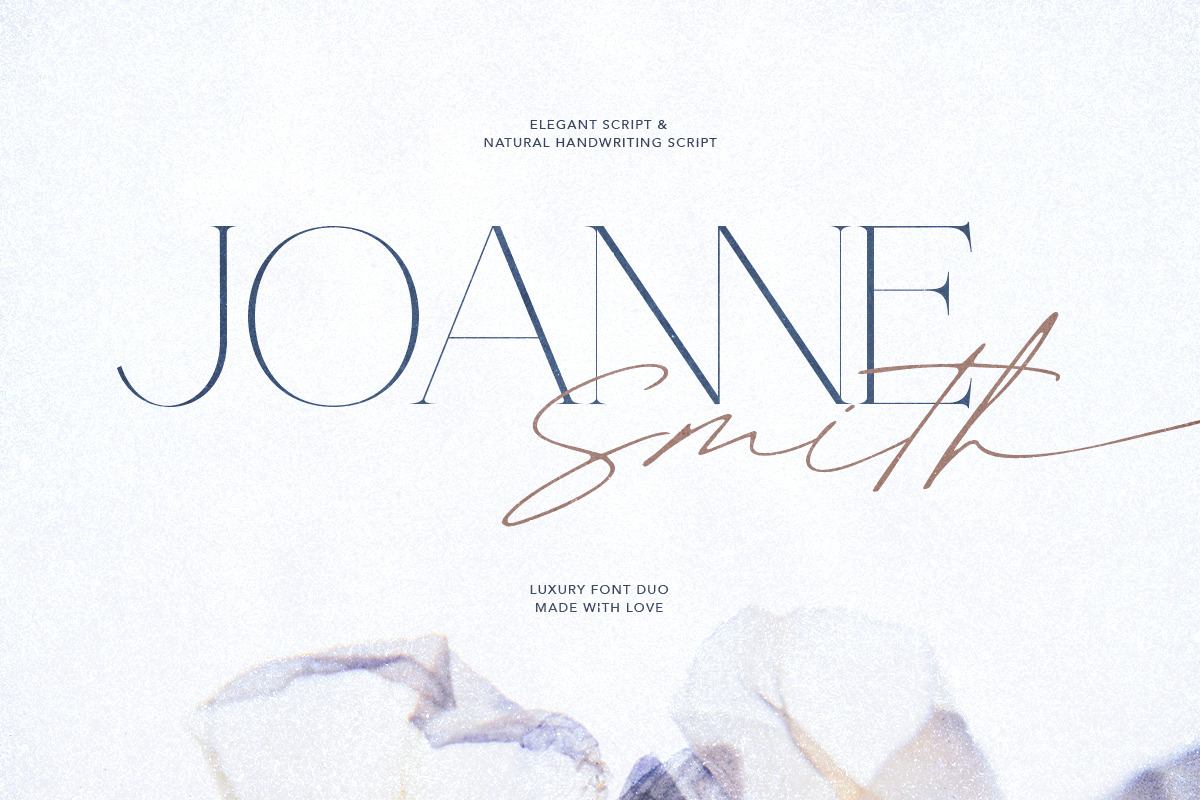
Joanne Smith - Elegant Font Duo Free Download
Joanne Smith - Elegant Font Duo Free Download is a sophisticated and versatile font pairing that combines the elegance of a flowing script with the balance of a clean serif font. This duo is perfect for wedding invitations, luxury branding, editorial designs, logos, and social media graphics that require a touch of refinement and style.
The script font adds a personal, handwritten feel, while the serif font brings structure and legibility, making it ideal for both display text and body copy. Together, these fonts create a harmonious and polished look, perfect for upscale designs.